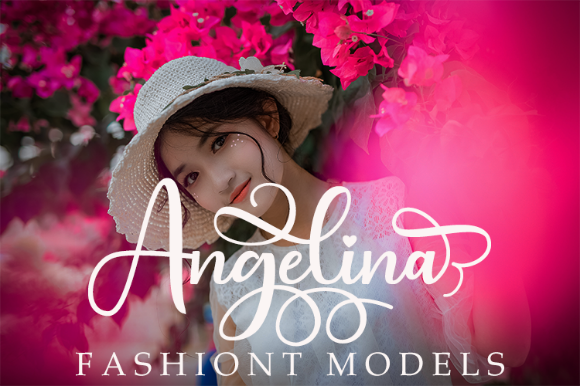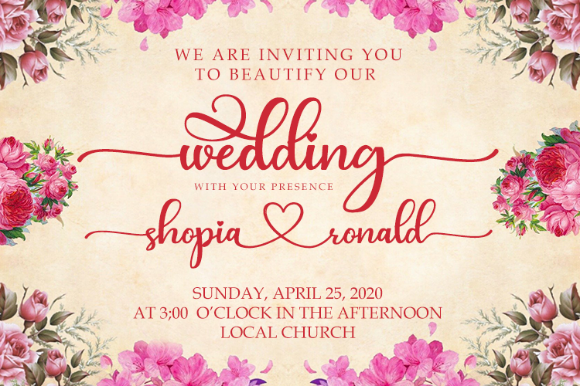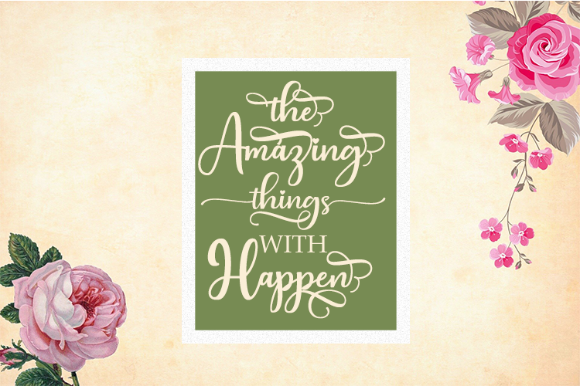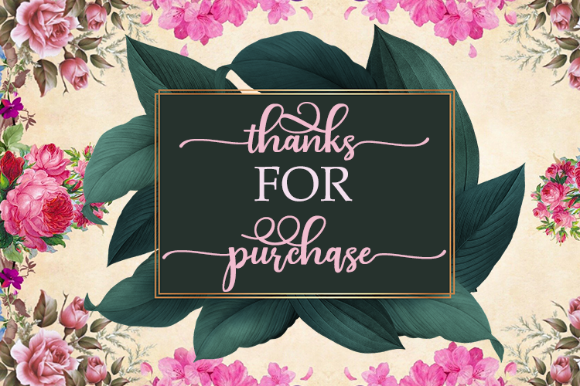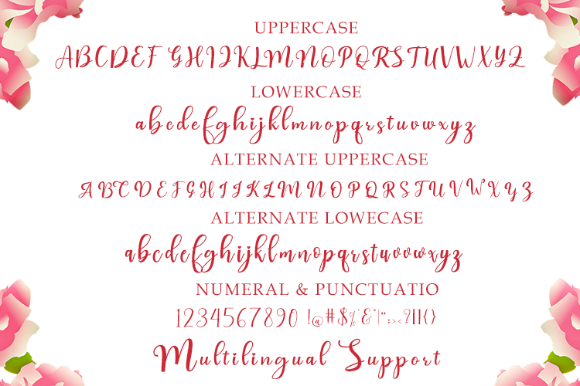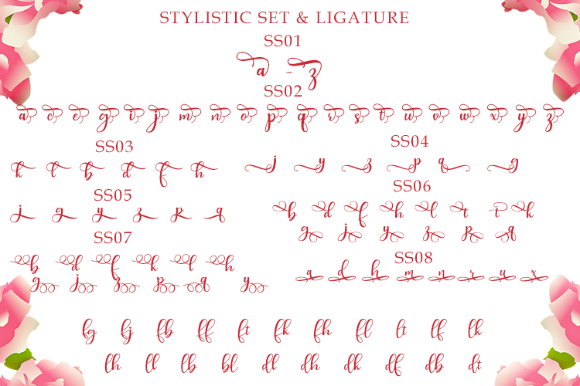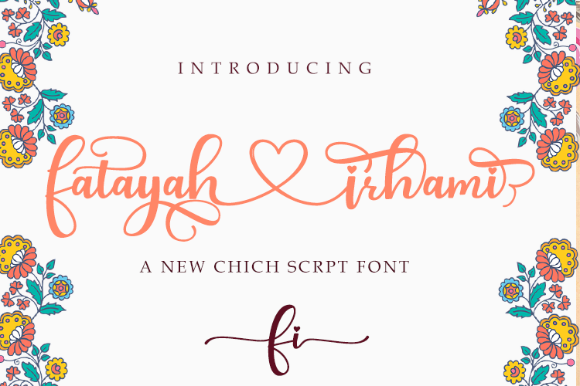
Introducing Fatayah Irhami Font: Elevate Your Designs with Elegance and Joy
Are you a designer or crafter looking for a font that exudes joy and elegance? Look no further than the Fatayah Irhami Font. This beautiful handwritten font is perfect for a variety of design projects, including wedding invitations, thank you cards, quotes, greeting cards, logos, business cards, and more.
A Font that Exudes Joy and Elegance
Fatayah Irhami Font is a stunning script font that features a varying baseline, smooth lines, gorgeous glyphs, and stunning alternates. Its unique and elegant design makes it perfect for adding a touch of sophistication to any design project. Whether you’re creating a romantic wedding invitation or a professional business card, this font is sure to impress.
One of the best things about Fatayah Irhami Font is its versatility. It’s perfect for a wide range of design projects, including:
- Wedding invitations: Add a touch of romance and elegance to your wedding invitations with this beautiful font.
- Thank you cards: Express your gratitude in style with Fatayah Irhami Font.
- Quotes: Make your quotes stand out with this stunning script font.
- Greeting cards: Create beautiful and elegant greeting cards for any occasion.
- Logos: Add a touch of sophistication to your logo with Fatayah Irhami Font.
- Business cards: Create professional and elegant business cards that will make a lasting impression.
Key Features of Fatayah Irhami Font
- Varying baseline: Creates a natural and organic look.
- Smooth lines: Adds a touch of elegance and sophistication.
- Gorgeous glyphs: Makes your designs stand out.
- Stunning alternates: Provides you with a range of options to customize your designs.
Why Choose Fatayah Irhami Font?
- Unique and elegant design: Makes your designs stand out.
- Versatile: Perfect for a wide range of design projects.